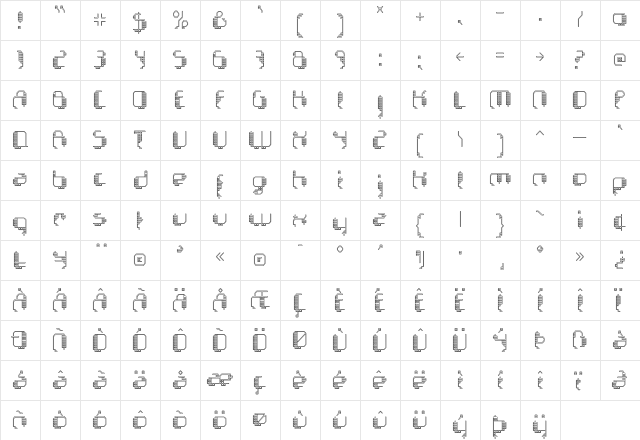
Chemo DoubleStroke Font Preview
Chemo DoubleStroke
Chemo DoubleStroke Font Details
| Style | DoubleStroke |
Design Context for Chemo Typeface
Chemo is a composed and adaptable typeface that performs quietly and consistently across a wide range of design contexts.